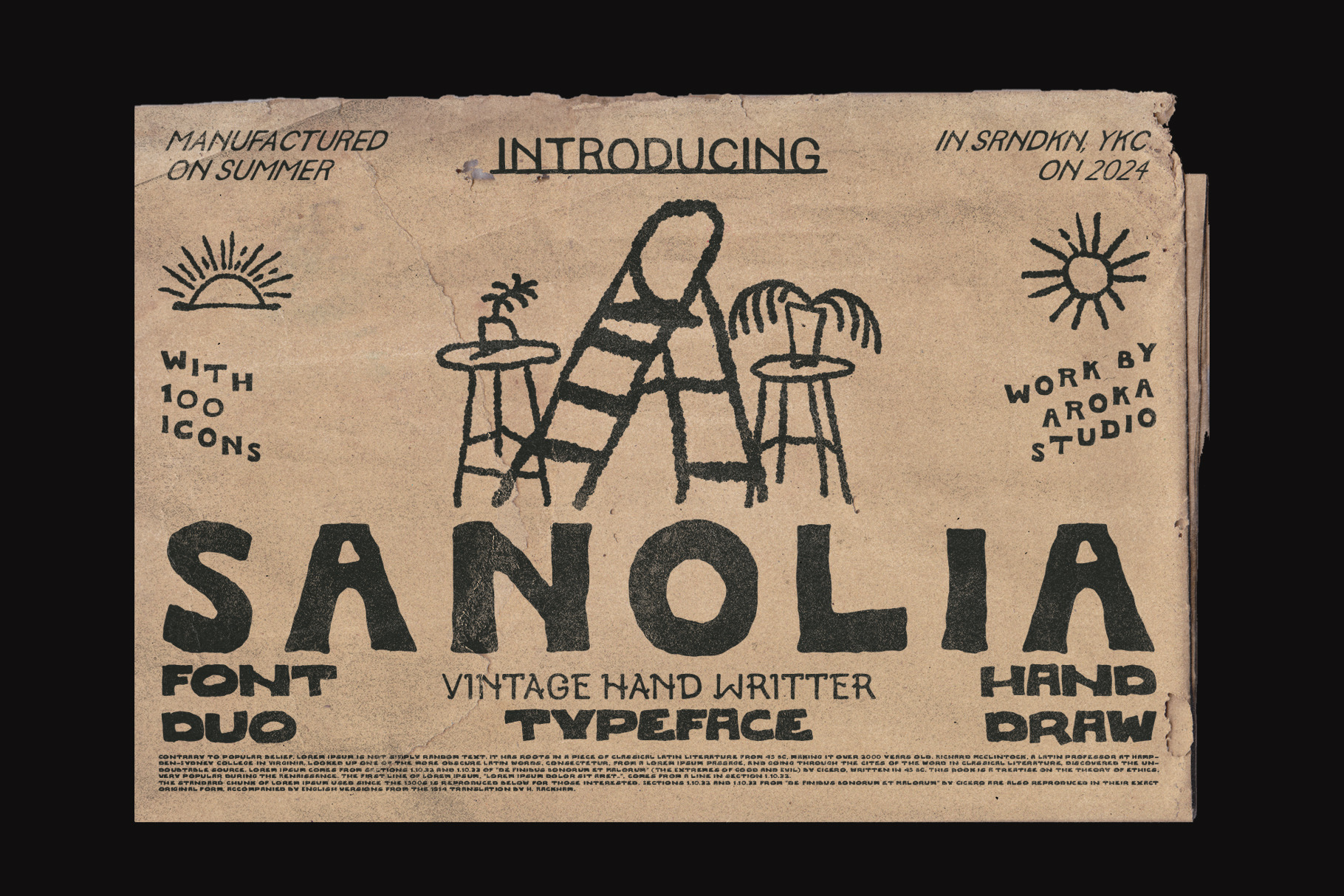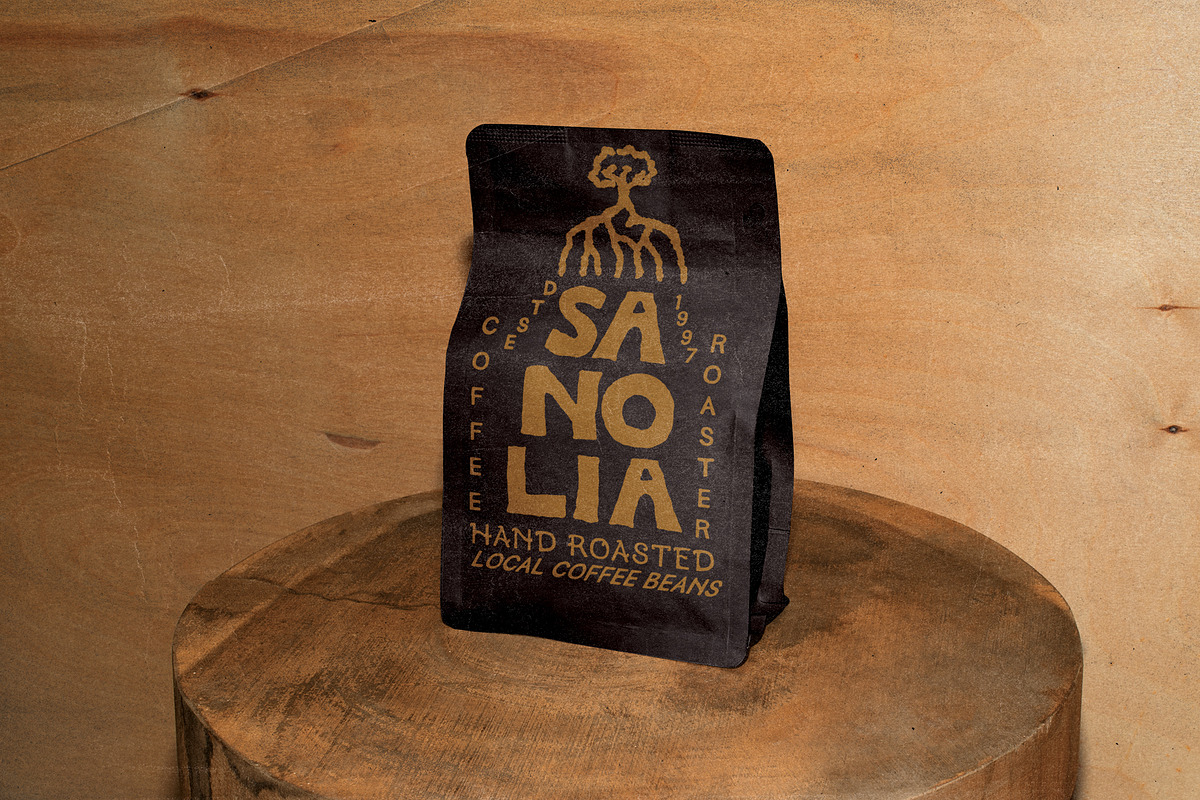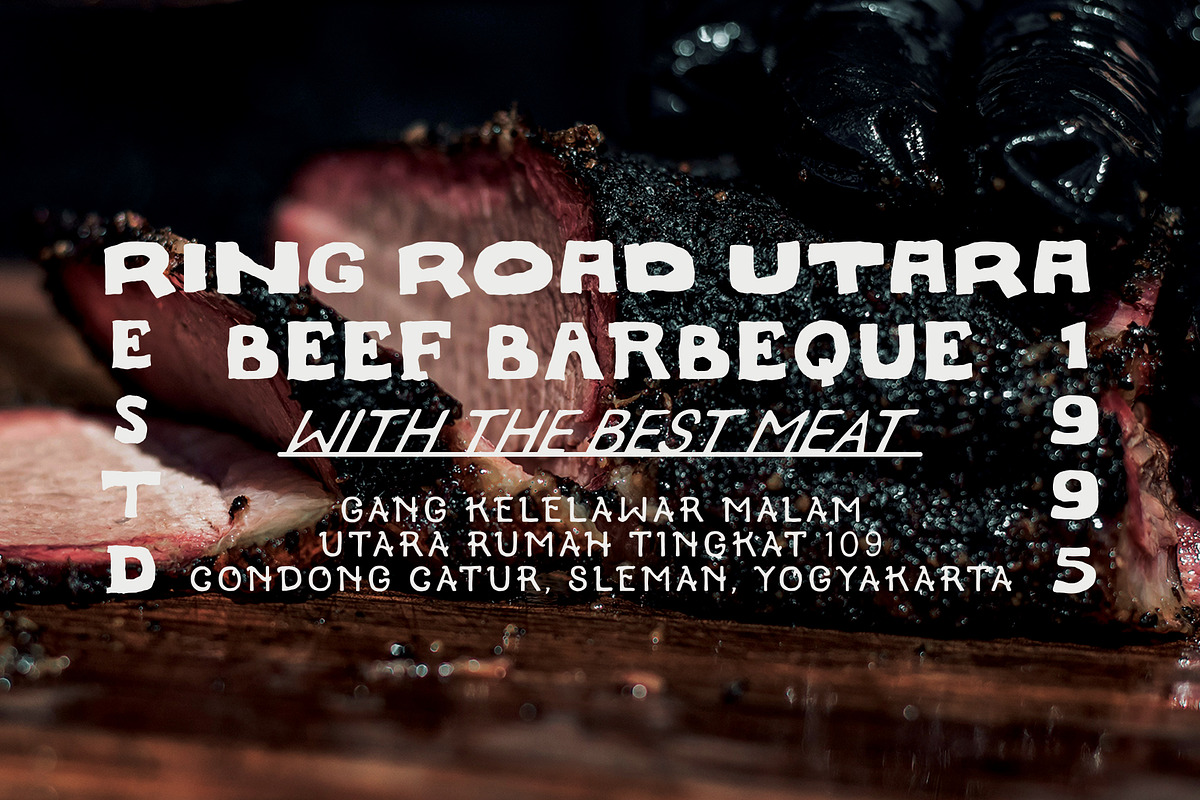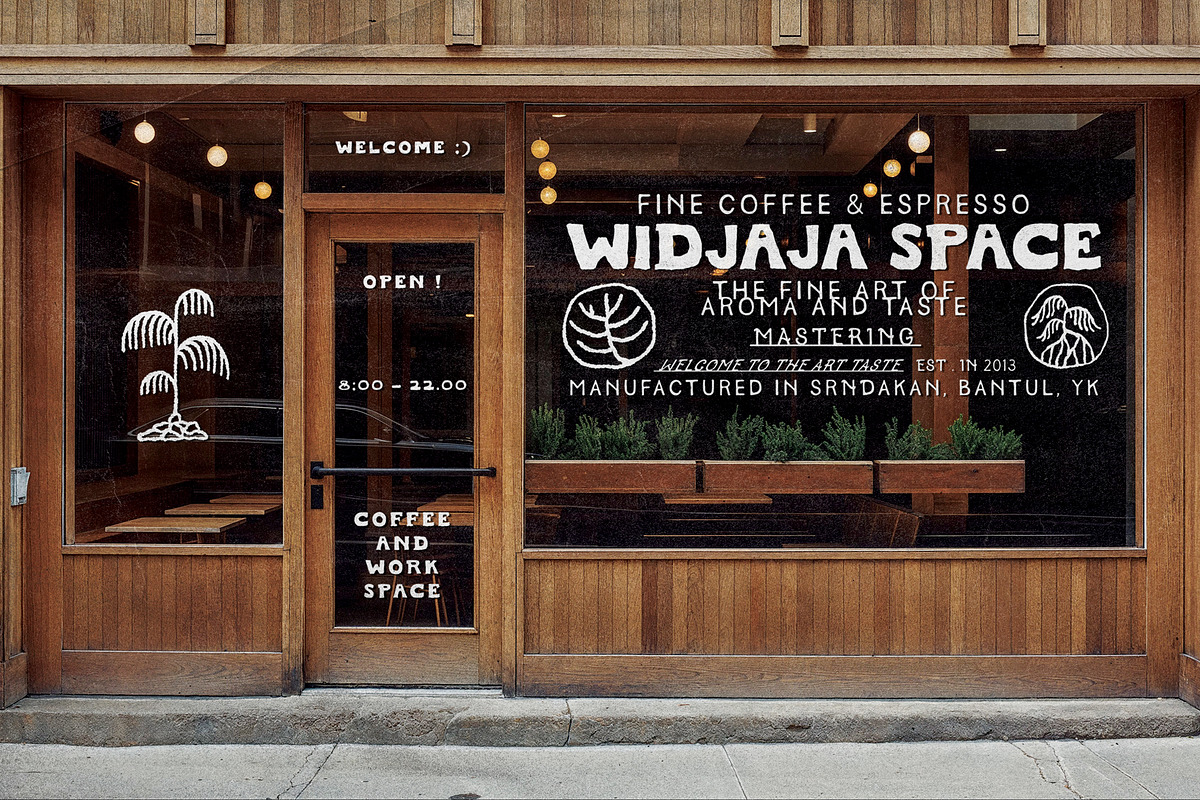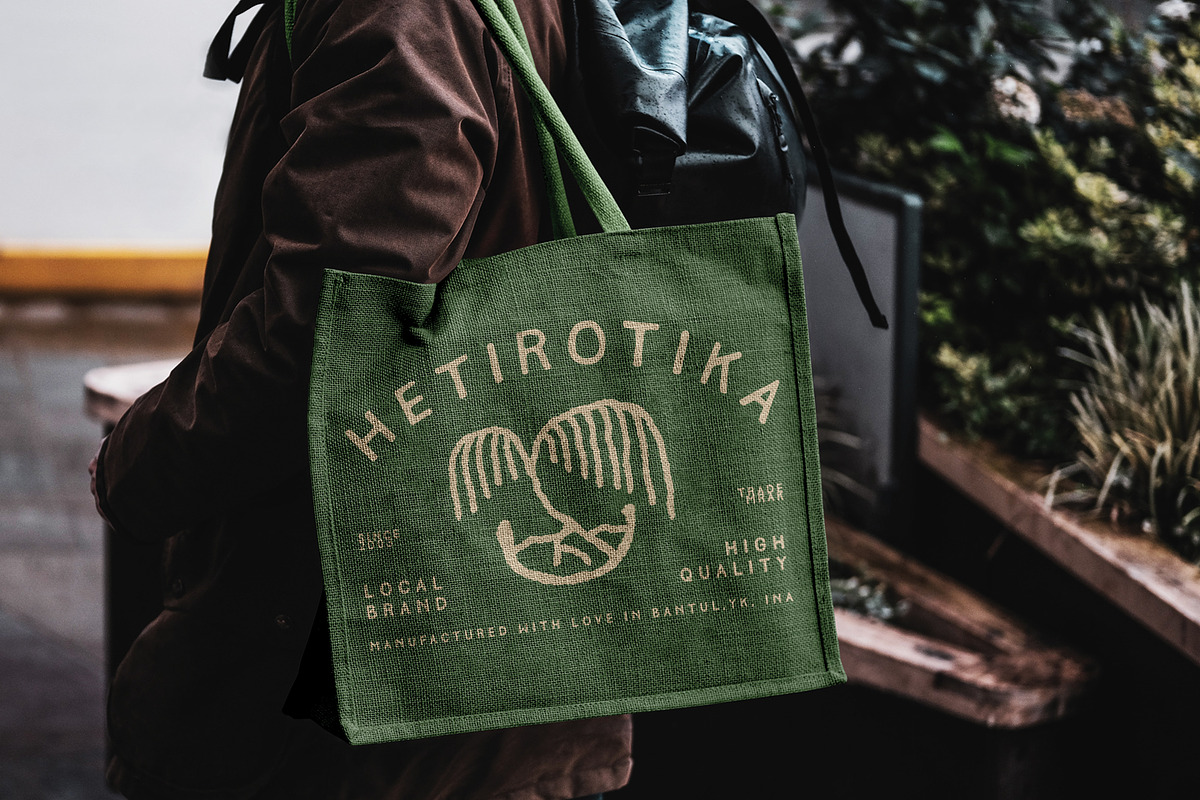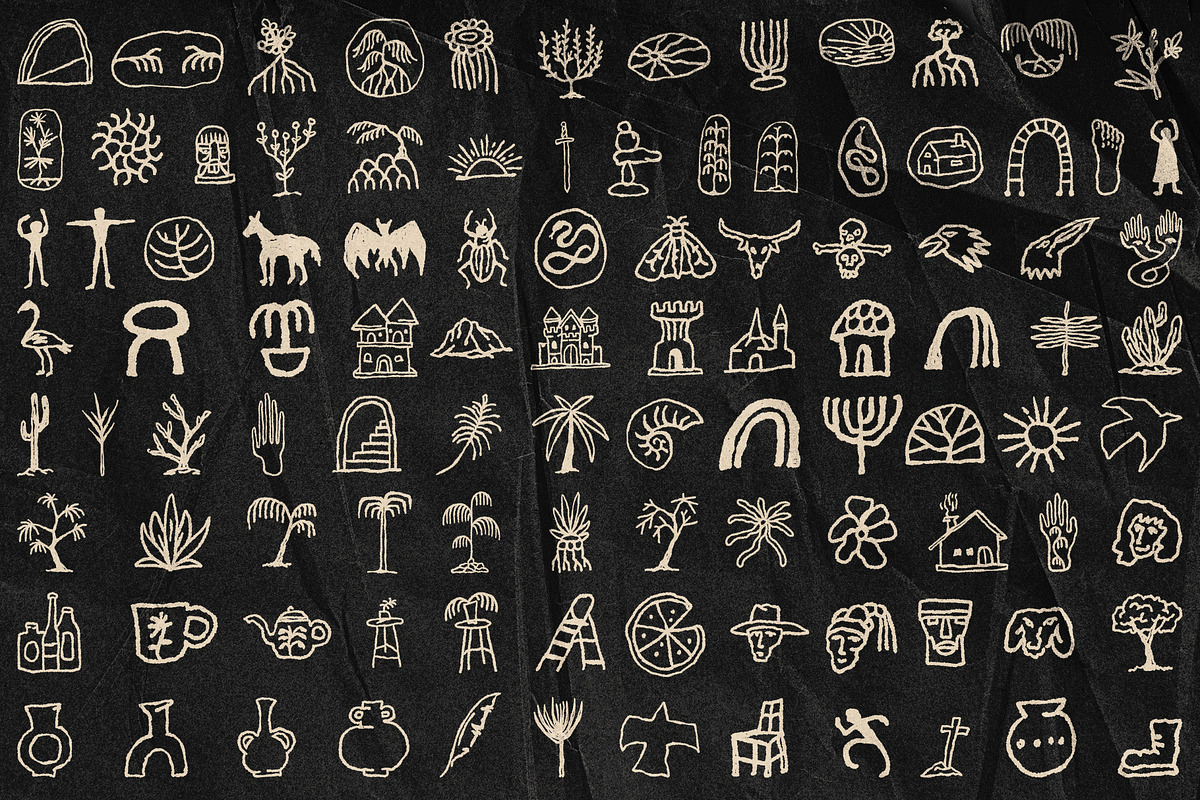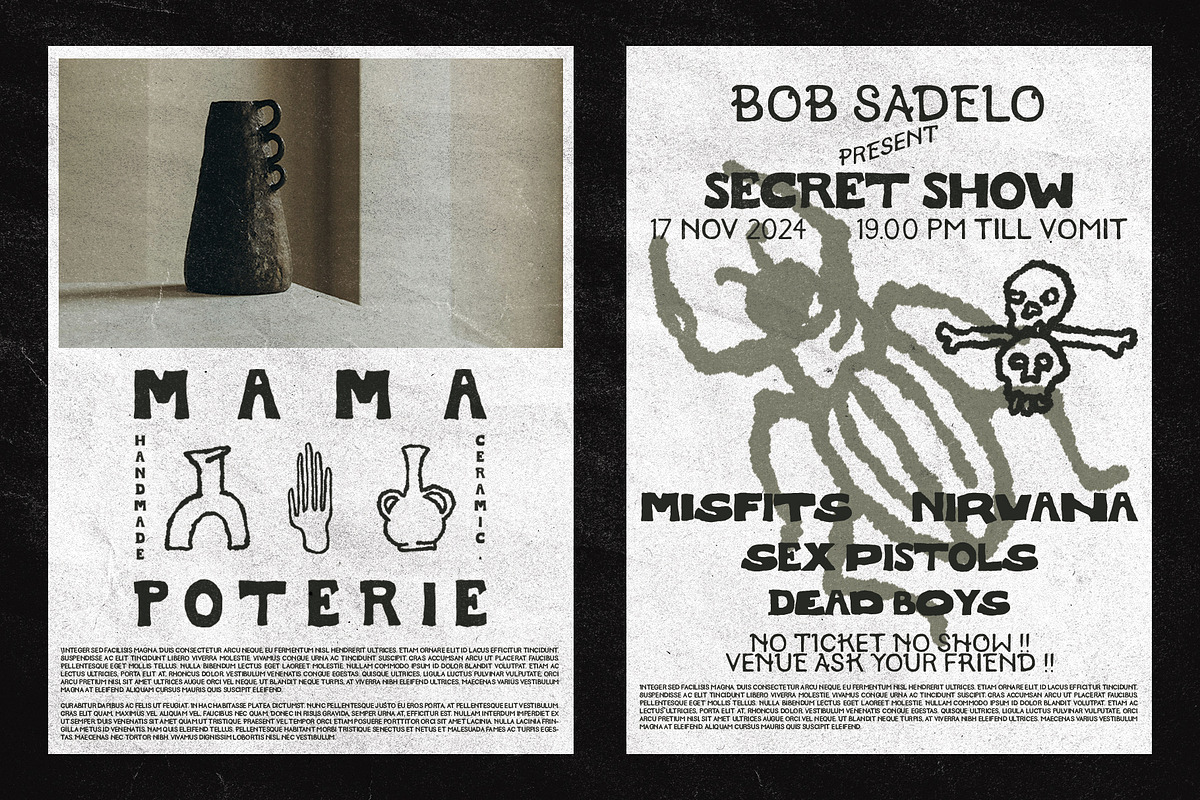
font inspired by mural on the wall and also inspired by the picture of a child and the picture in the cave, do not hesitate to start using it check the font !! and there are source files for the icon Adobe Illustration, PDF, PNG and SVG, thank you !!